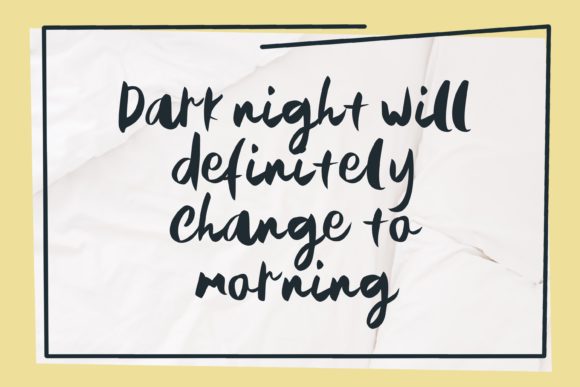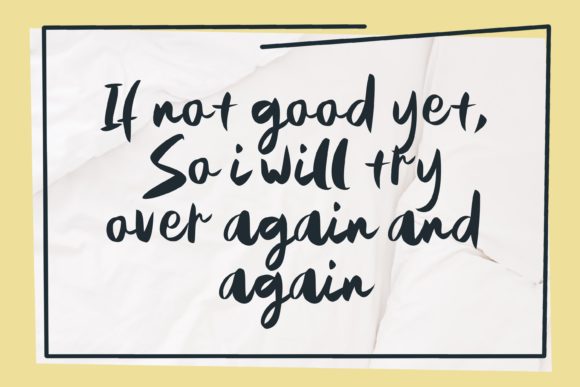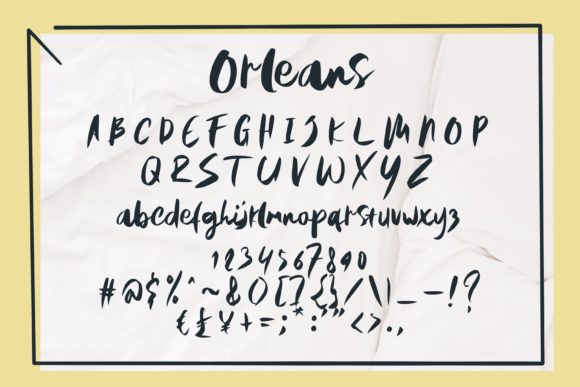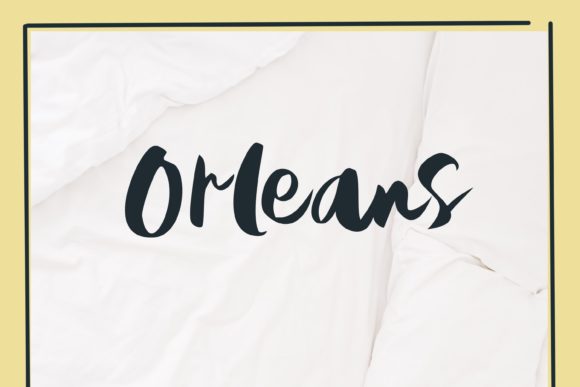
About Orleans Font
Orleans is a casual brushed handwritten font that has a fun, modern vibe. This typeface works really well for logos and apparel designs. Fall in love with its incredibly versatile style and use it to create spectacular designs!